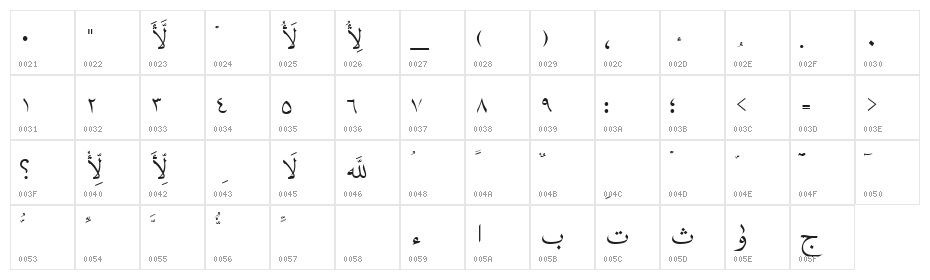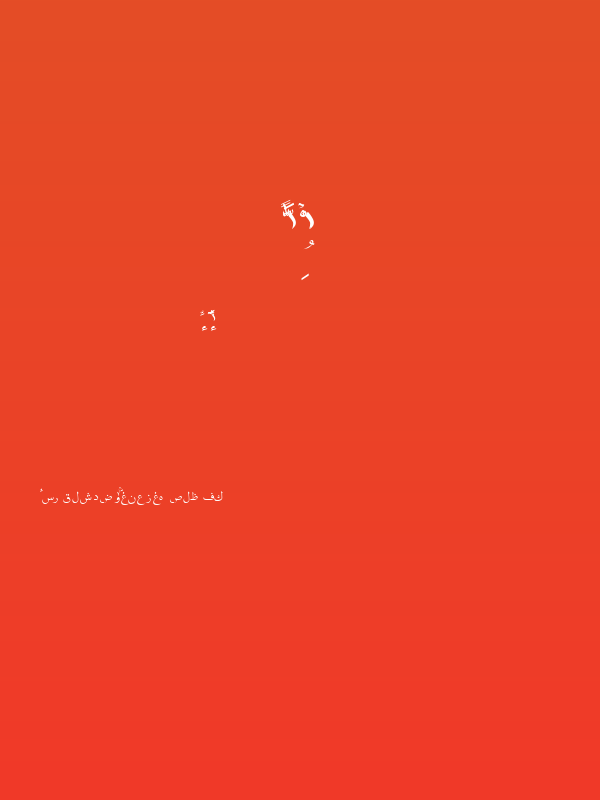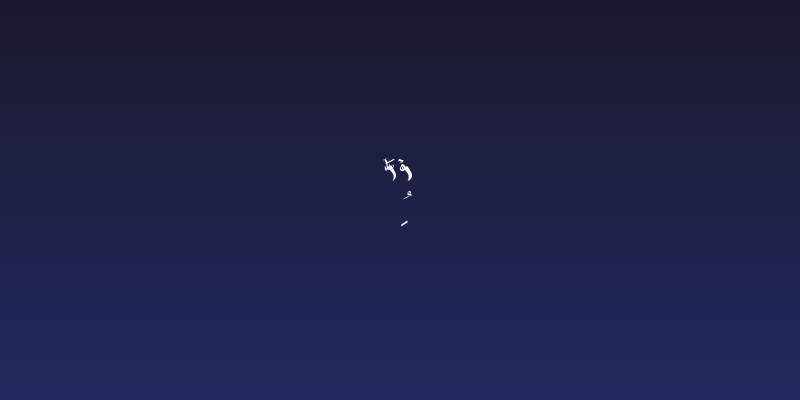
Quran Madina. Font
Quran Madina. Description
This font is a traditional Arabic script characterized by its elegant and flowing style, often used in religious texts. The letters are intricately designed with a focus on calligraphic beauty, featuring smooth curves and sharp angles. The script includes diacritical marks that are essential for pronunciation in Arabic. The numbers are styled to match the overall aesthetic, maintaining a harmonious look throughout. This font is ideal for conveying a sense of tradition and reverence, making it suitable for formal and religious contexts.
| Use Case | Religious texts, Formal documents |
| Proposed Projects | Ideal for religious texts, formal invitations, and cultural publications. |